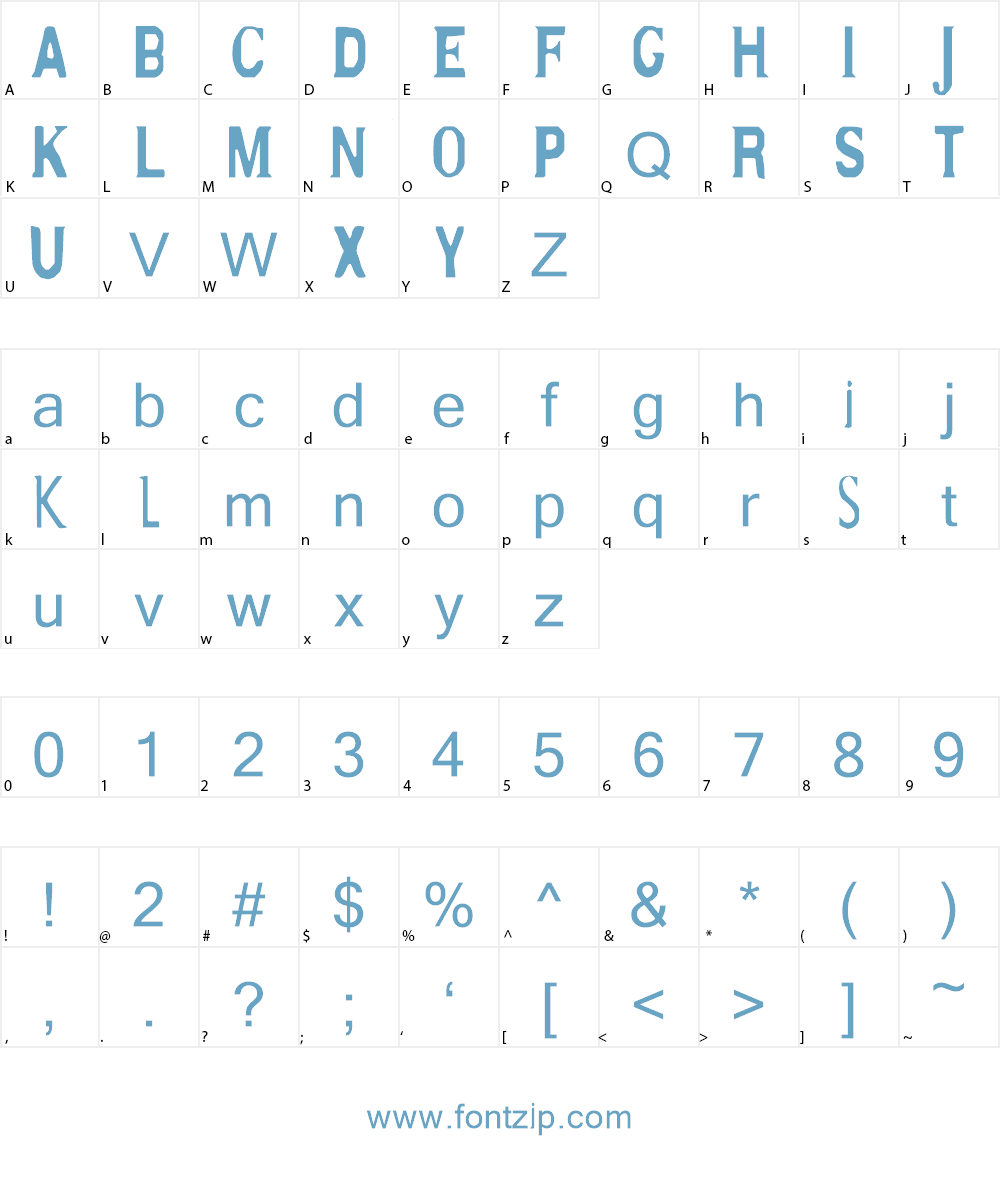
Latest FREE fan-based font from the title sequence of the TV series of the same name, 5 wide based capitals missing, only 4 lowercase letters spelling out SILK this is a WIP, please donate to help me finish this